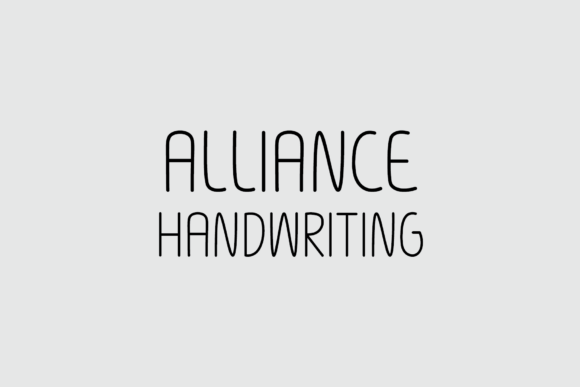
The Ultimate Guide to Alliance Font: A Friendly Handwritten Delight
I’ll never forget the time I was working on a wedding invitation project, and my client asked for a font that was both whimsical and elegant. I scoured the internet, tried countless fonts, but nothing seemed quite right. That was until I stumbled upon Alliance Font. It was love at first sight! 💕 In this article, I’ll share my experience with Alliance Font, its features, and how to make the most of it in your designs.
An Honest Review of Alliance Font
Alliance Font is a simple and friendly handwritten font that has won my heart. Here’s what I love about it:
- ✨ Whimsical and quirky, perfect for adding a personal touch to your designs
- ✅ Easy to read, even in smaller sizes
- 💖 Friendly and approachable, great for creating a warm atmosphere
- 🎨 Highly versatile, suitable for a wide range of projects
Of course, no font is perfect, and Alliance Font has a few minor quirks:
- 🤔 Some letters may appear a bit too connected, which can make it tricky to use in certain contexts
- ⚠️ Limited availability of stylistic alternates, which might limit your creative options
The Story Behind Alliance Font
Alliance Font was designed with the intention of creating a friendly, approachable typeface that would bring a touch of warmth to any design. The designer, inspired by the beauty of handwritten letters, aimed to craft a font that would be both elegant and playful. And I think they succeeded! 😊
Q: What is Alliance Font best suited for?
A: Alliance Font is perfect for a wide range of projects, including logos, wedding invitations, quotes, advertisements, print, magazines, and more!
Q: Is Alliance Font easy to read?
A: Yes, Alliance Font is designed to be easy to read, even in smaller sizes. Its clear and simple design makes it perfect for body text and captions.